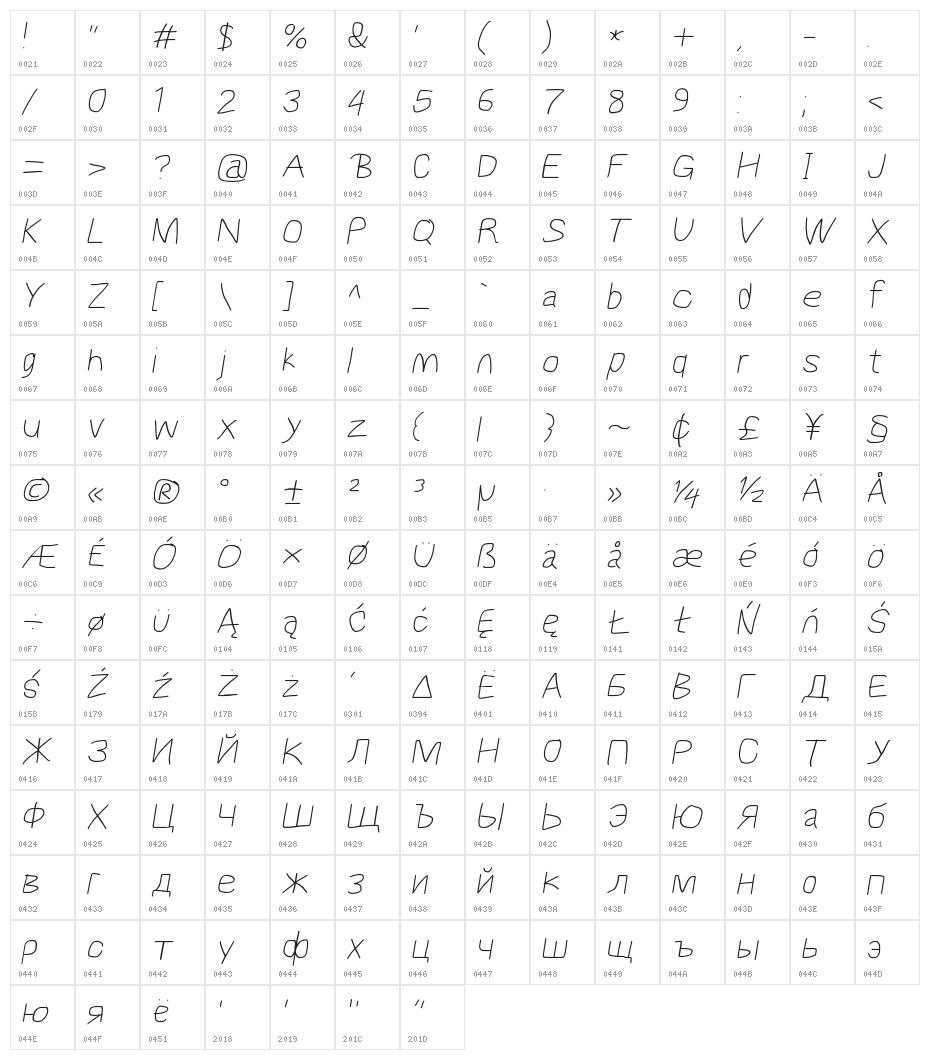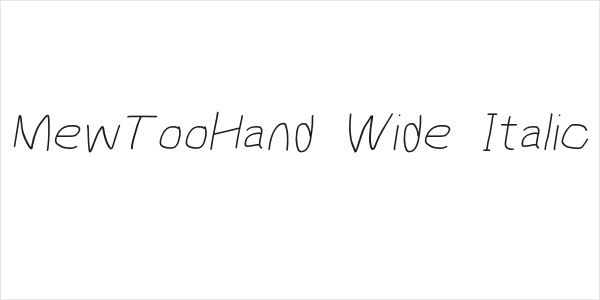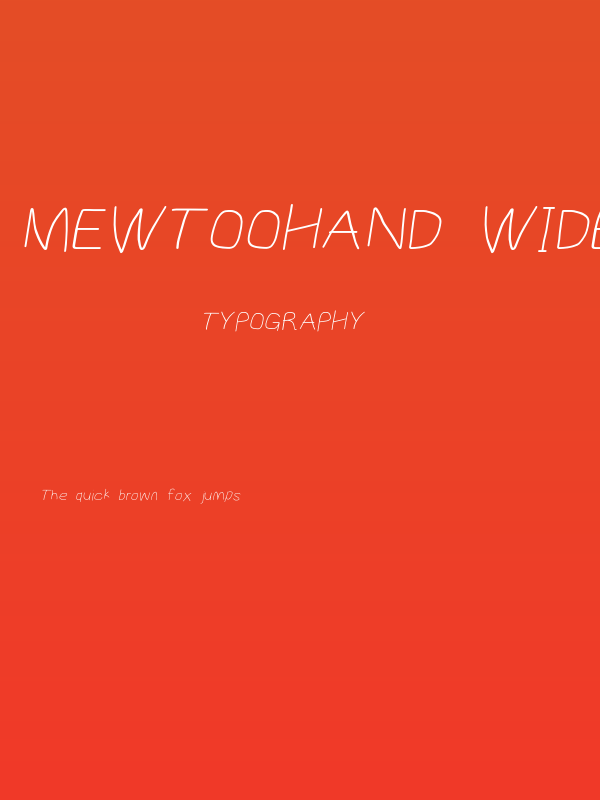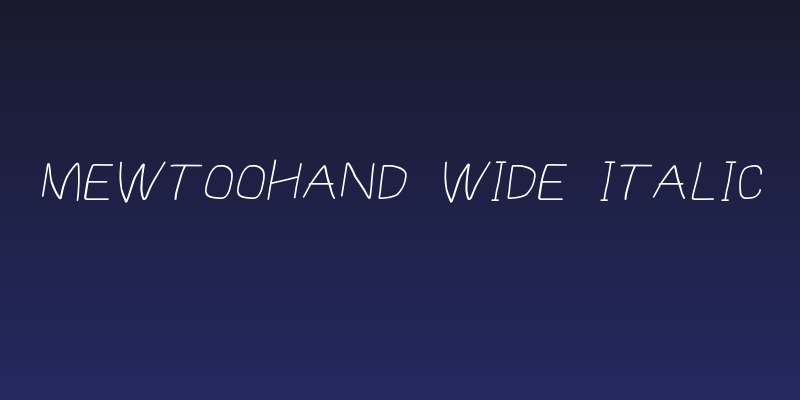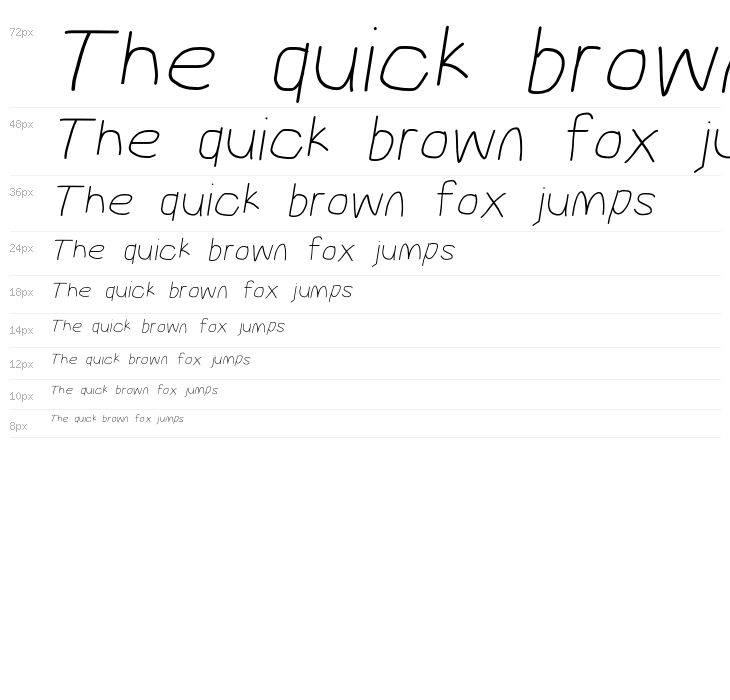
MewTooHand Wide Italic Font
MewTooHand Wide Italic Description
This font exhibits a playful and casual handwritten style, characterized by its wide and slightly italicized letterforms. The strokes are smooth and fluid, giving it an informal and approachable appearance. The uppercase letters maintain a consistent height, while the lowercase letters show a slight variation in size, adding to the font's dynamic feel. The numerals are clear and legible, matching the overall style of the alphabet. Special characters are well-integrated, maintaining the same playful aesthetic. This font is suitable for projects that require a personal touch, such as invitations, greeting cards, or casual branding.
| Use Case | Headlines, Informal text, Personal projects |
| Proposed Projects | Ideal for invitations, greeting cards, casual branding, and personal projects. |